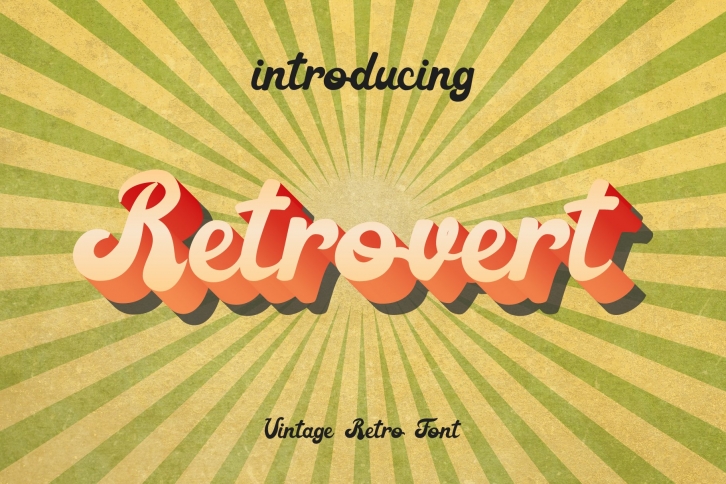
Retrovert is Retro Vintage Script Font - a new groovy and unique Retro Vintage Script style make this font looks Oldschool, Retro, Vintage and Unique
Retrovert with a distinct appearance of Retro, 70's era. the golden era. It works well in posters, CD Cover, T-shirt / merchandise design, magazine,the possibilities are endless!